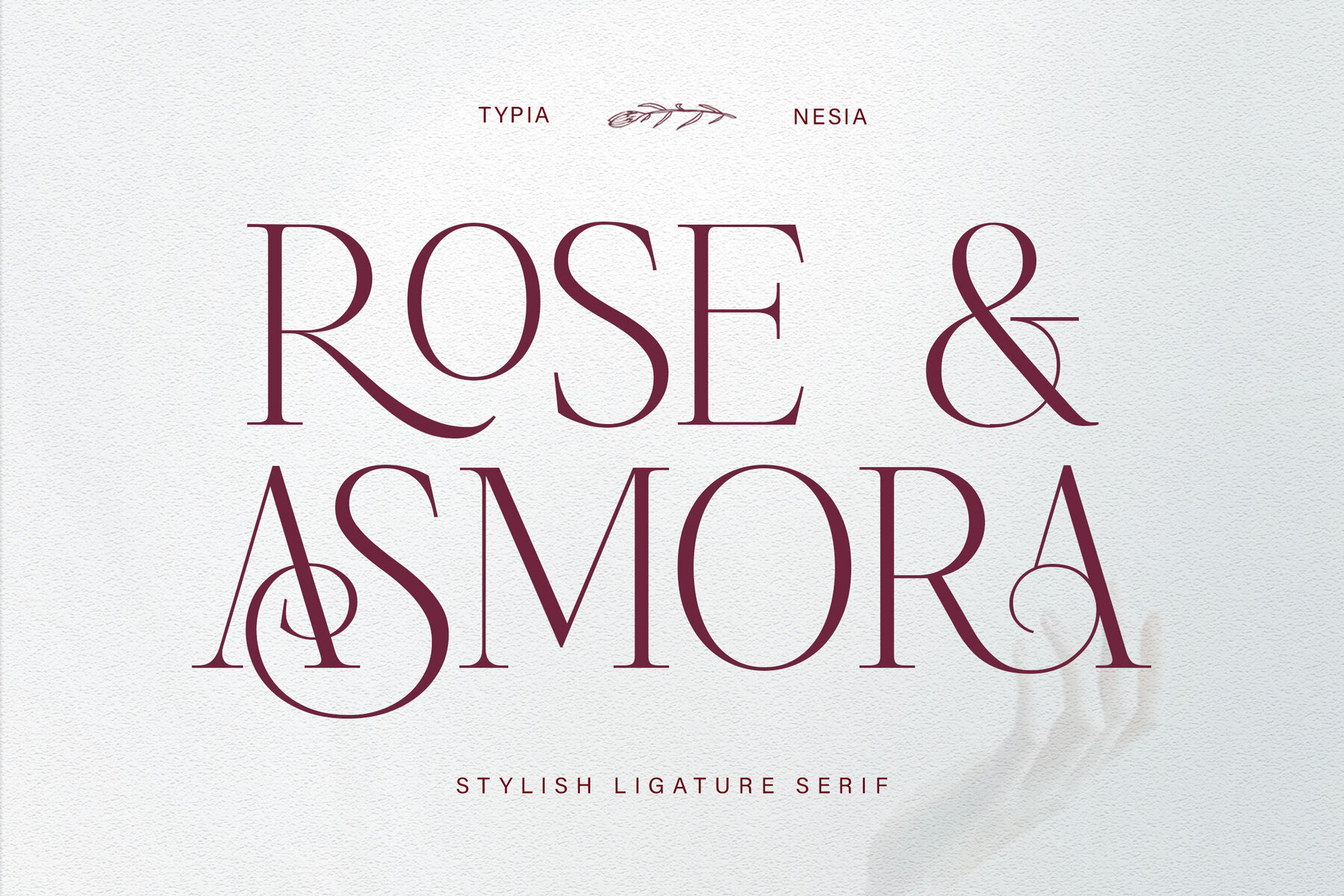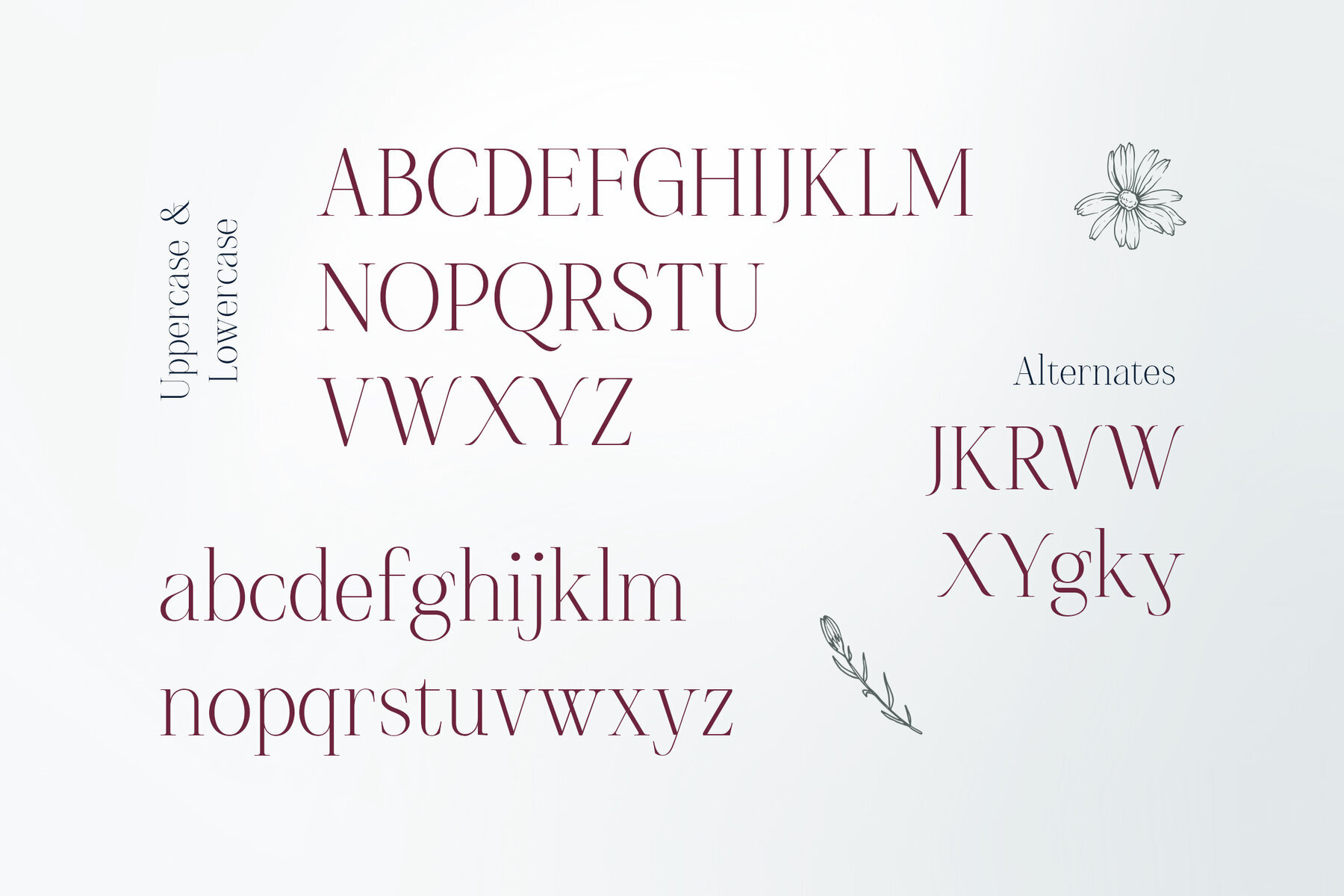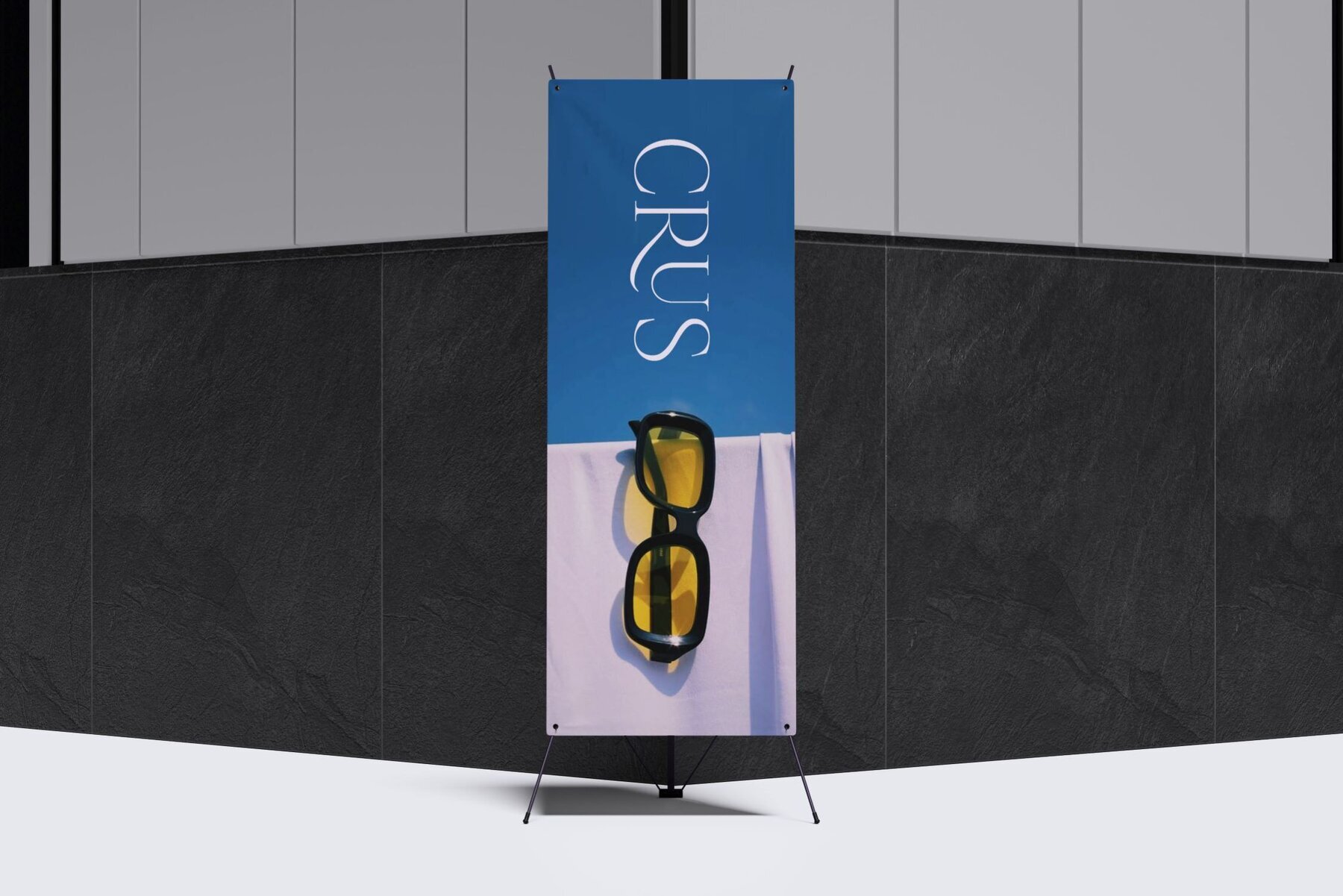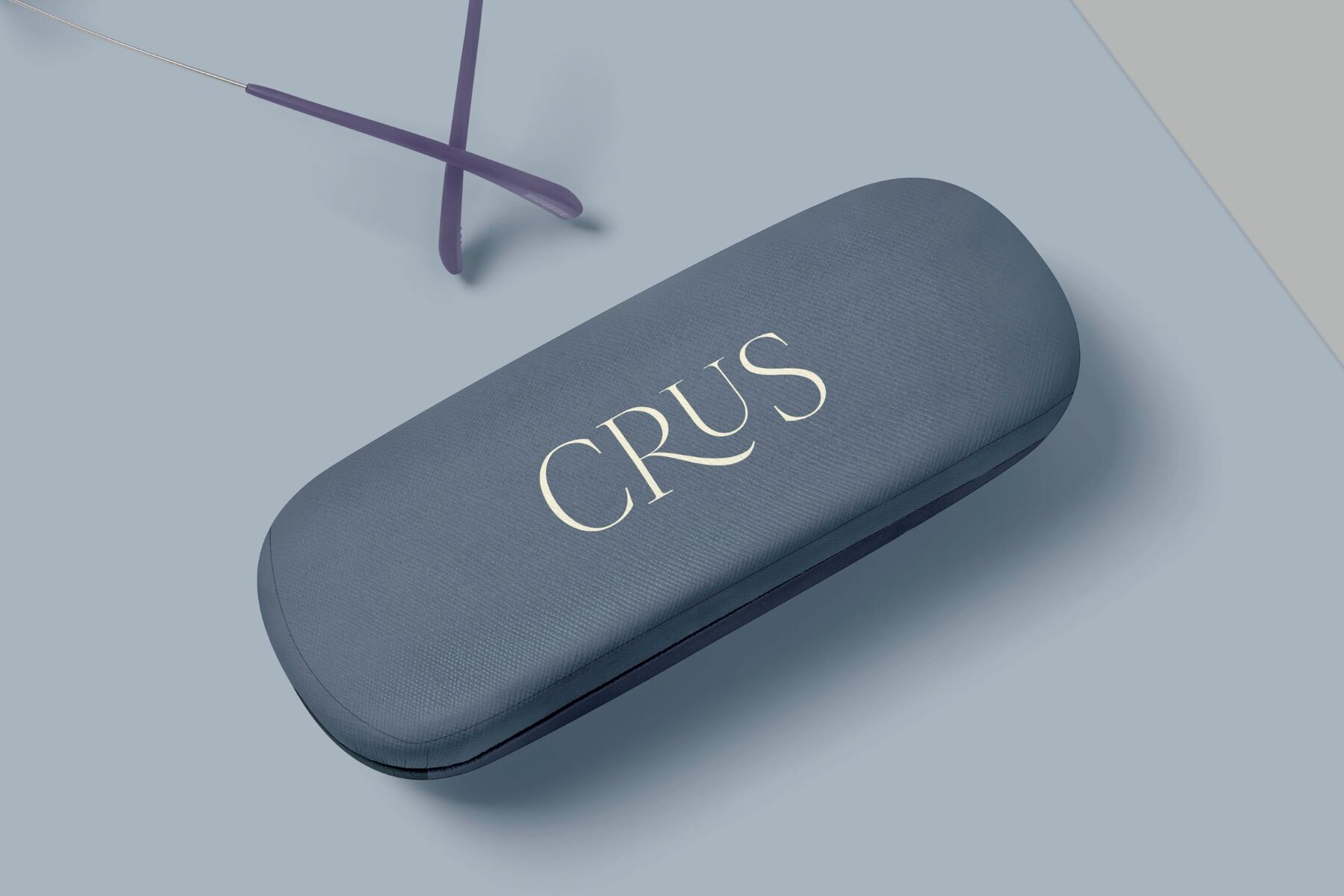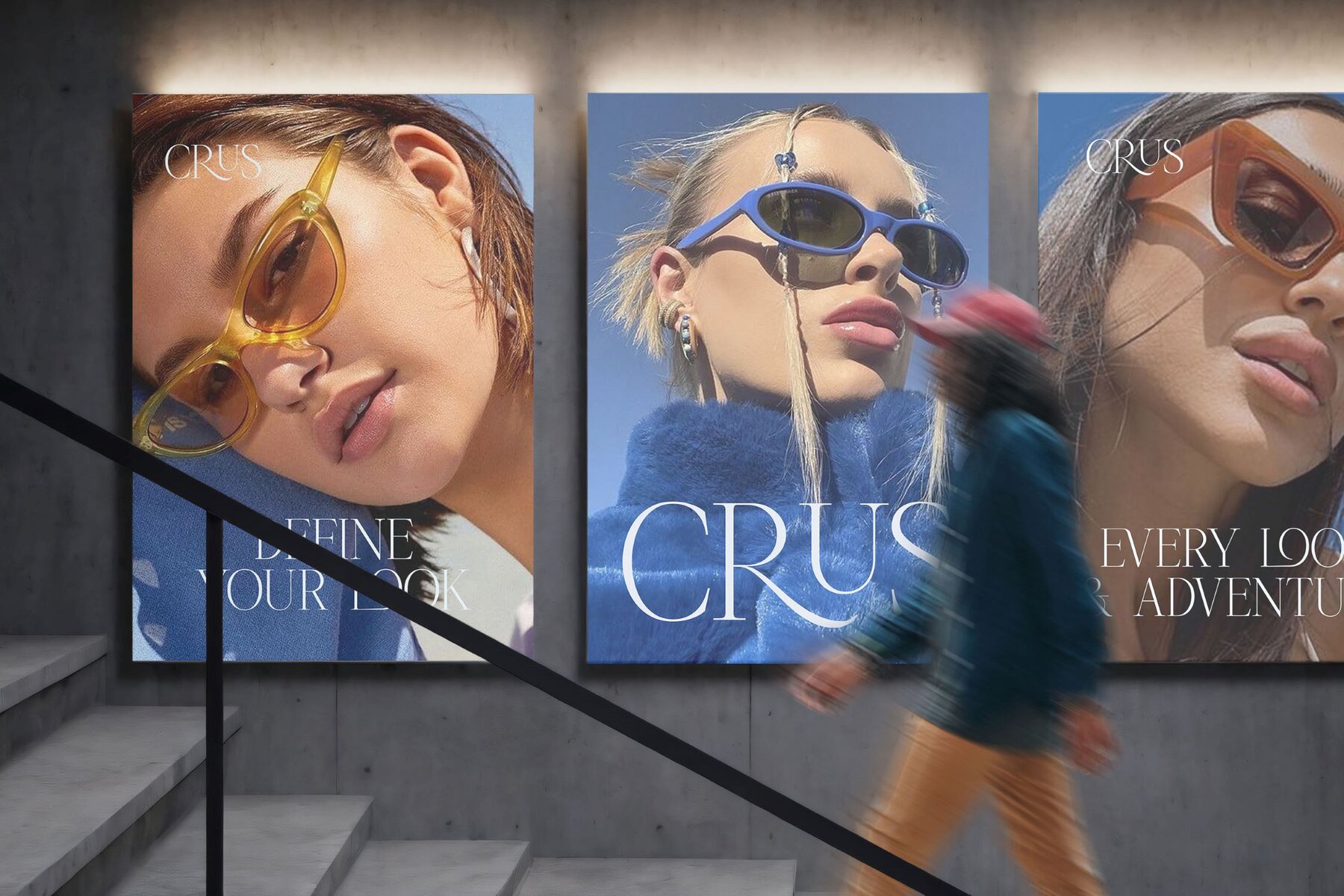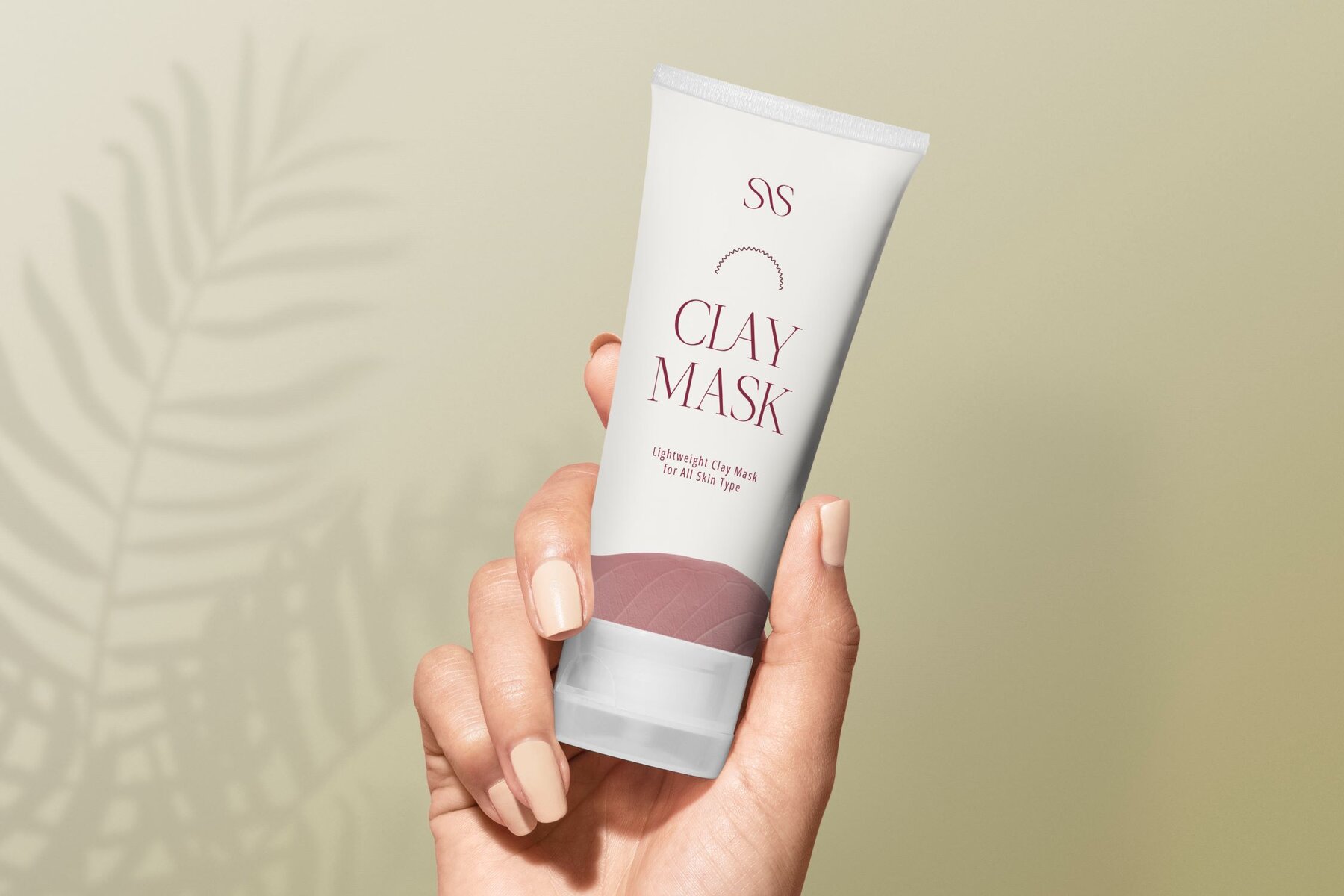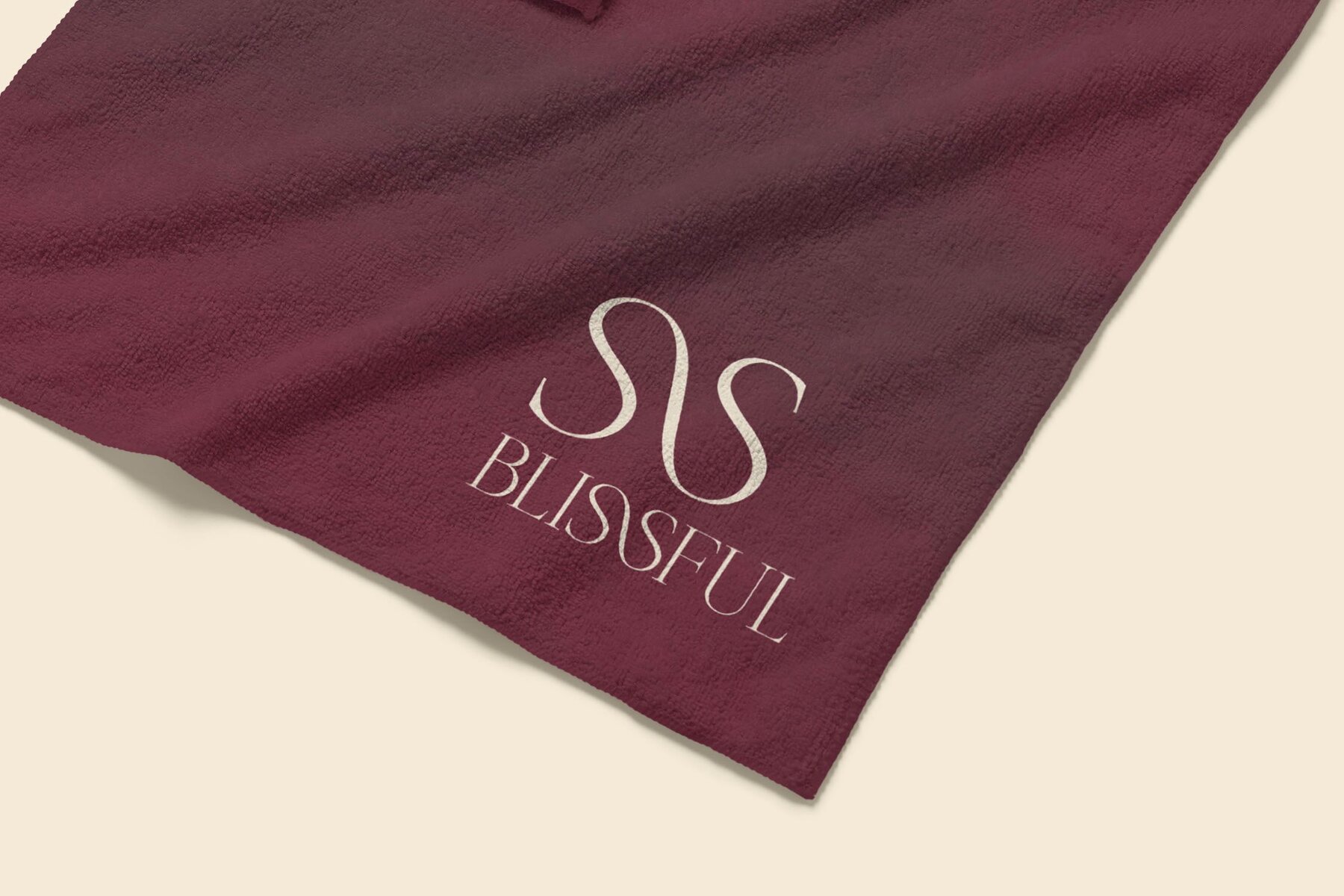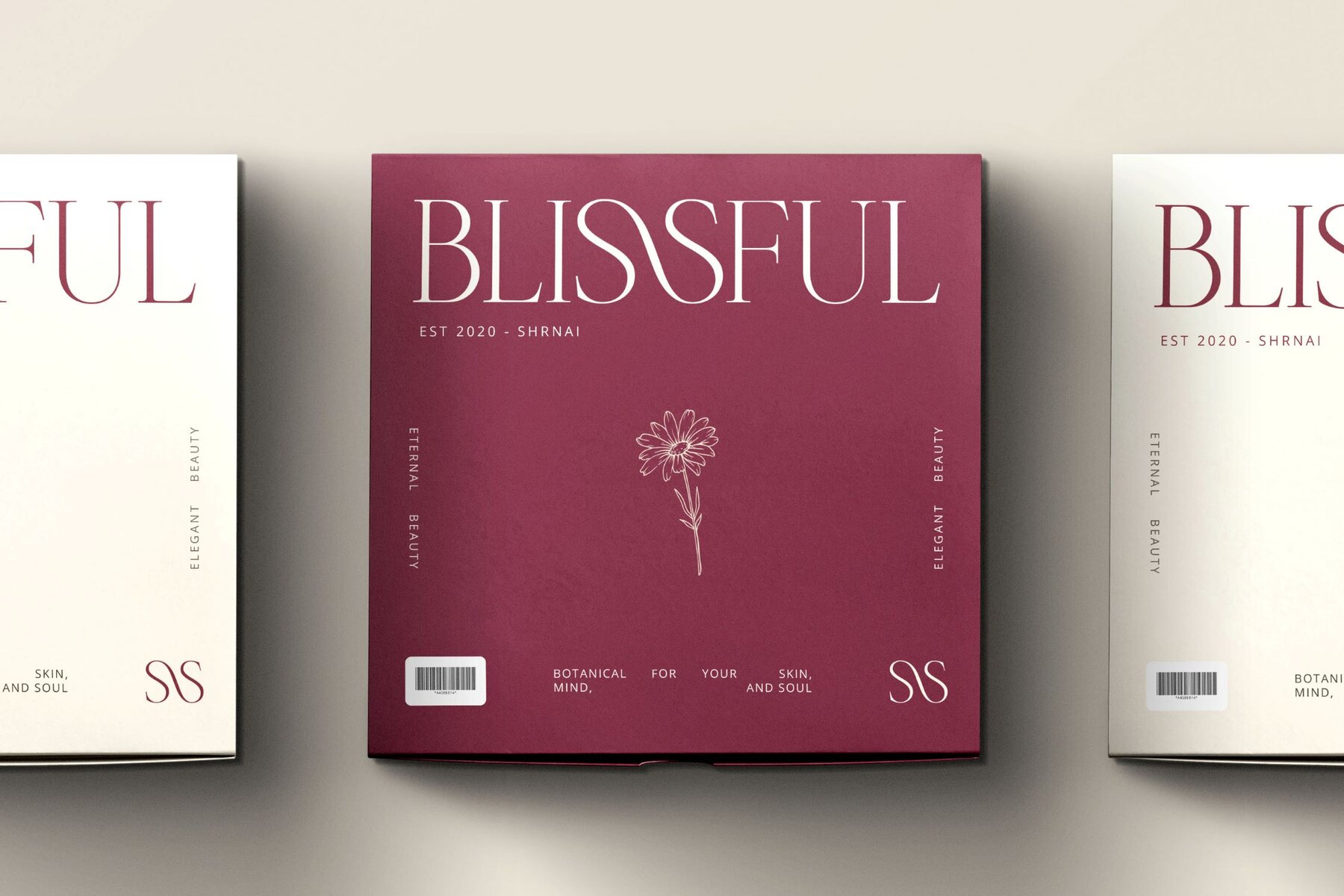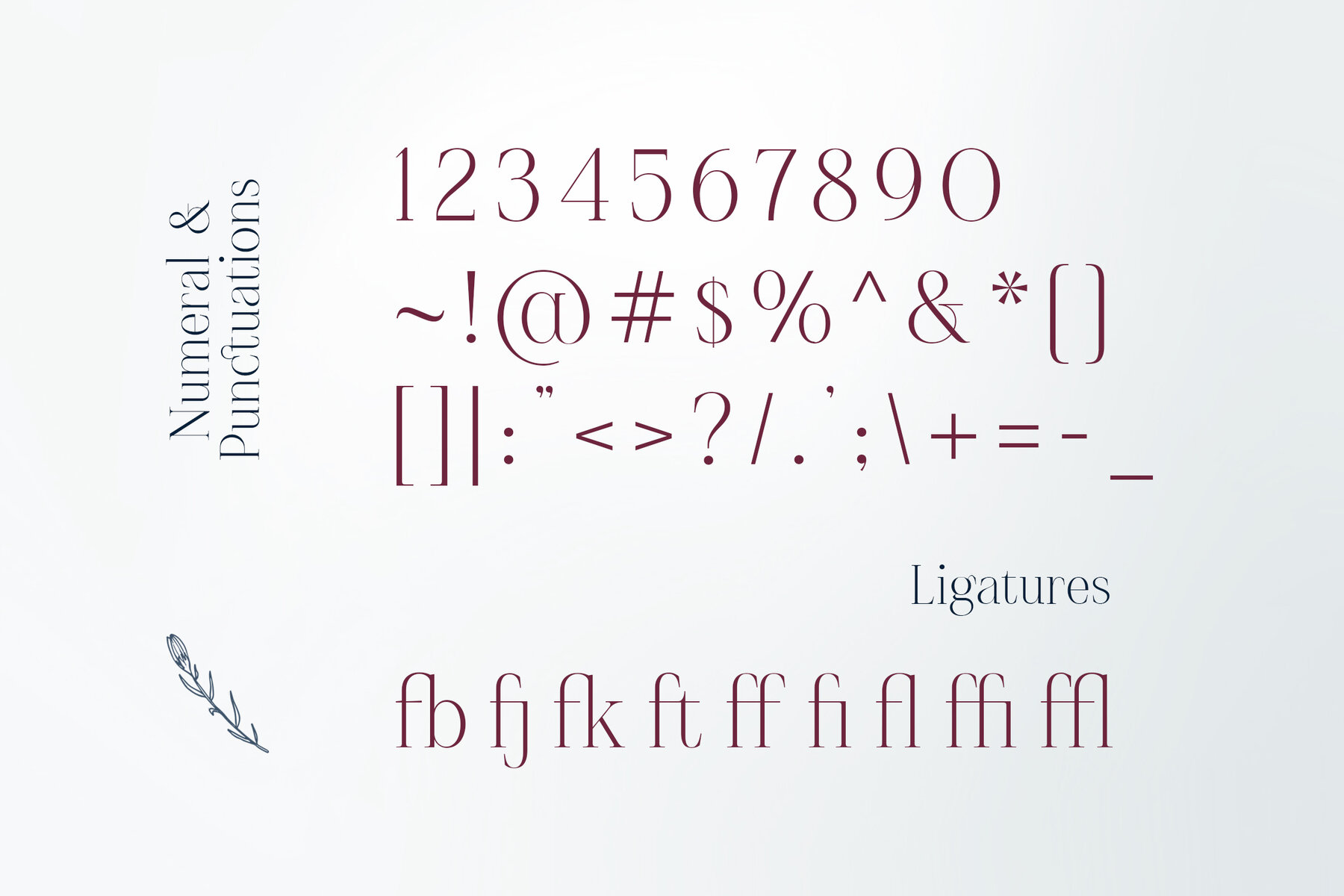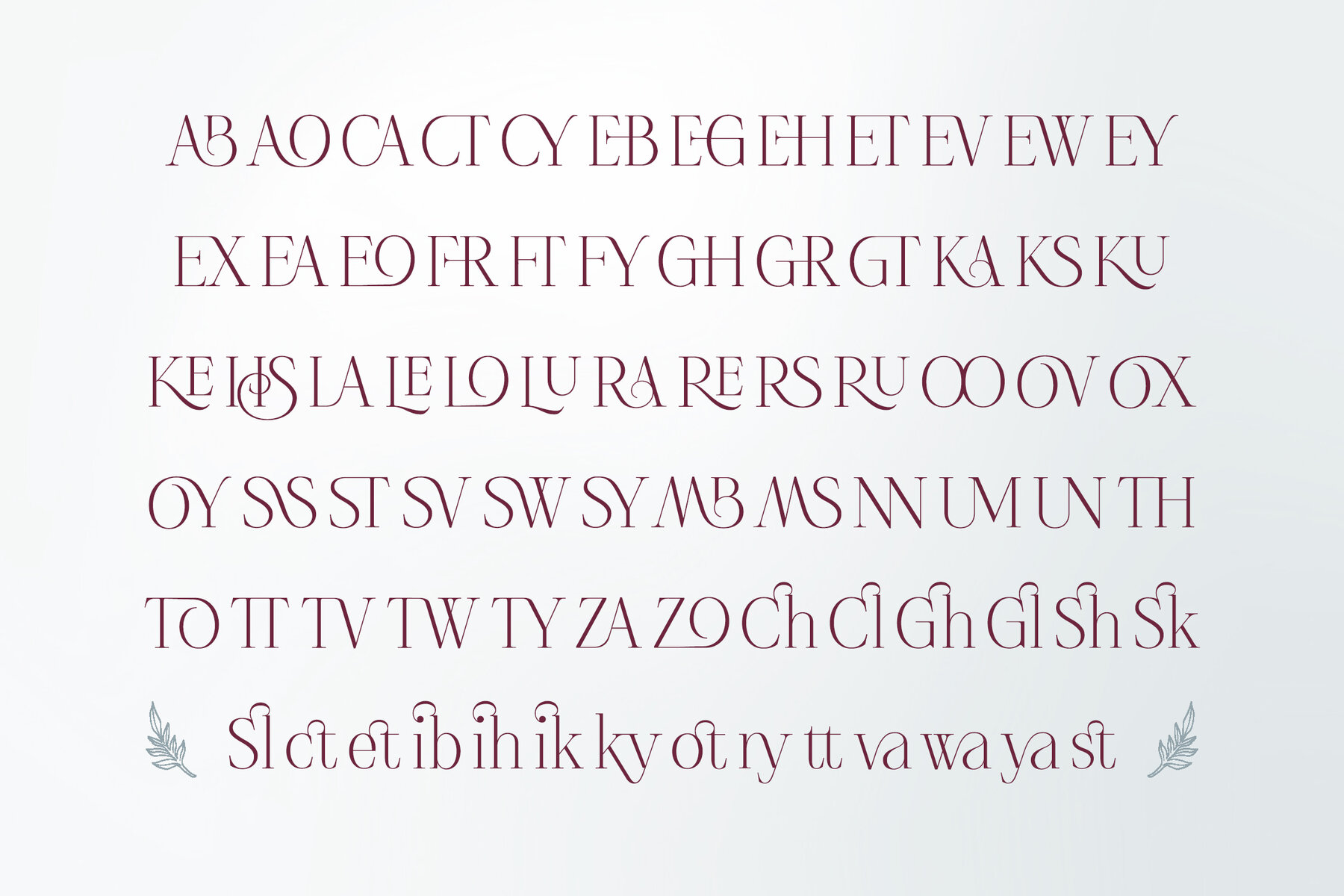
Rose and Asmora Font
Rose and Asmora Regular
Rose & Asmora is a Stylish Ligature Serif font that exudes elegance and beauty with its intricate ligatures and stylish serifs. It strikes the perfect balance between classic charm and modern appeal, making it suitable for a wide range of design projects, such as branding and logo design, editorial design, wedding invitations, posters, product packaging, event invitations and announcements, digital marketing campaigns, and more, where a touch of style and Elegance is desired. Rose & Asmora boasts ligatures that enhance the seamless connection between characters, adding to its aesthetic appeal. The font includes a comprehensive set of uppercase and lowercase letters, punctuation marks, numerals, alternates for added design flexibility, and multilingual support for global accessibility. Crafted with expertise in serif typography and decorative design, Rose & Asmora reflects a deep understanding of aesthetics and design principles. Its Stylish Ligature Serif style showcases mastery in creating fonts that elevate the visual appeal of any project.